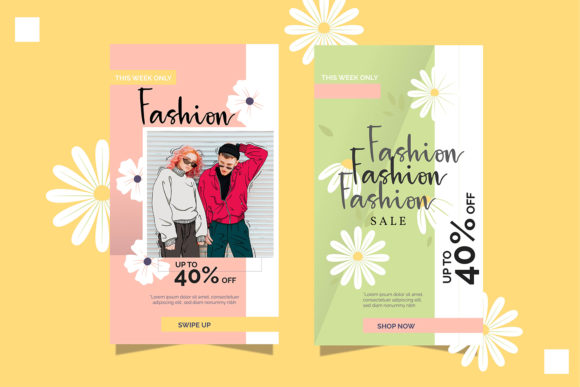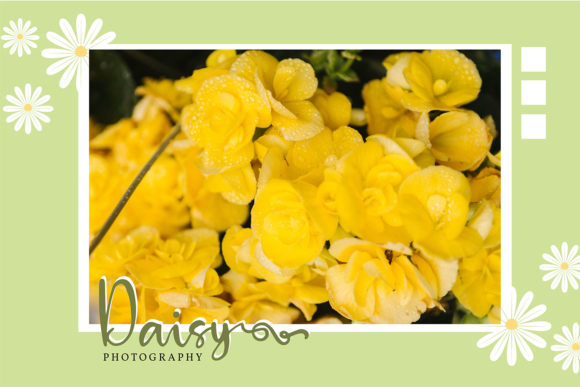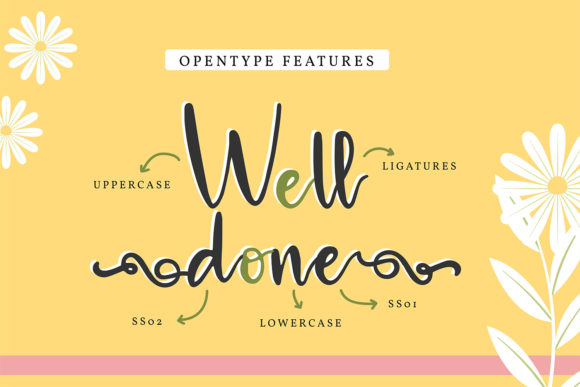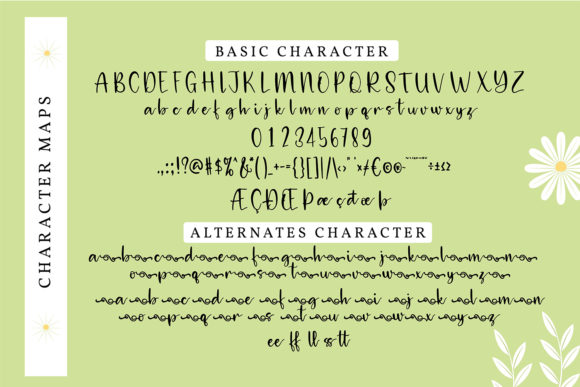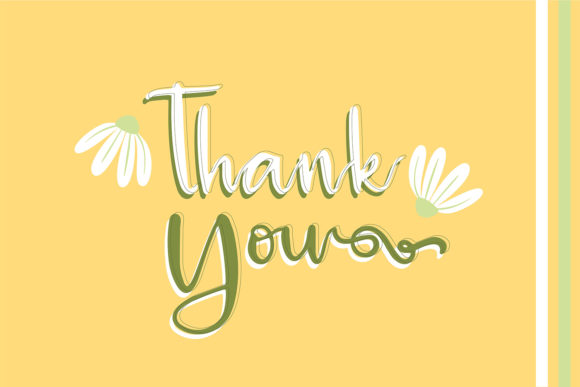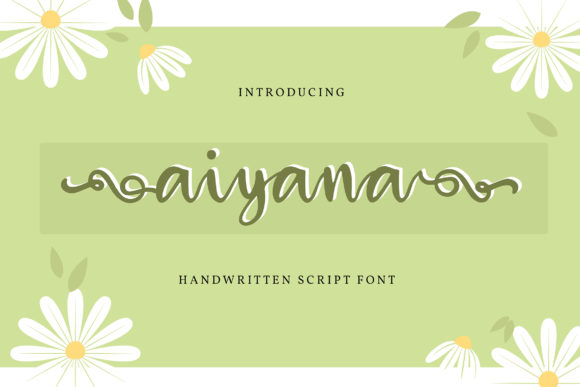
The Elusive Font: A Designer’s Journey with Aiyana
I still remember the project – a client’s wedding invitation suite that needed a touch of elegance and sophistication. As I scrolled through my font library, nothing seemed quite right. That was when I stumbled upon Aiyana, a cursive and graceful script font that caught my eye. Its beautiful swashes and fluid lines seemed perfect for the job. In this article, I’ll share my experience with Aiyana, its features, and how to make the most of this lovely font.
First Impressions: Aiyana Font Review
Aiyana is a stunning script font that adds a personalized touch to any design. Here’s what I love about it:
- ✨ Elegant and cursive, perfect for quotes, greeting cards, logos, and business cards
- 💫 Beautifully crafted to add a touch of sophistication to any design
- 📚 Versatile and works well with various design projects
While Aiyana is an excellent font, it does have a few minor quirks:
- 🤔 Some users might find the font a bit too delicate for certain design projects
- ⚠️ Limited availability of certain characters, but this is made up for by its PUA encoding
The Story Behind Aiyana
Aiyana is a font designed with elegance and sophistication in mind. While I couldn’t find much information on its origins, it’s clear that the designer put a lot of thought into crafting a beautiful and versatile font. Whether used for wedding invitations, greeting cards, or logos, Aiyana is sure to add a touch of class to any design.
| What is Aiyana font? | Aiyana is a cursive and graceful script font, perfect for designs that need a personalized touch. |